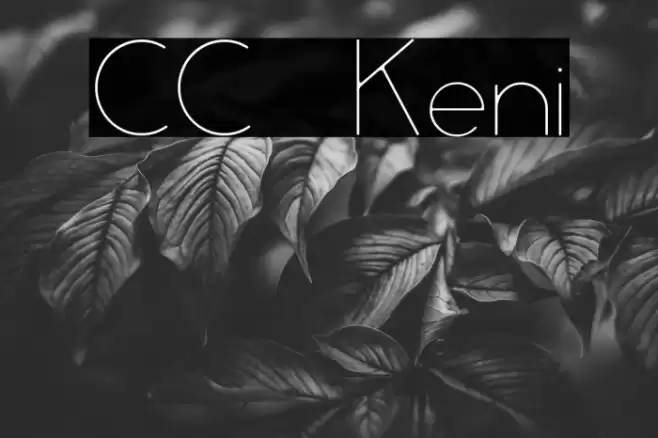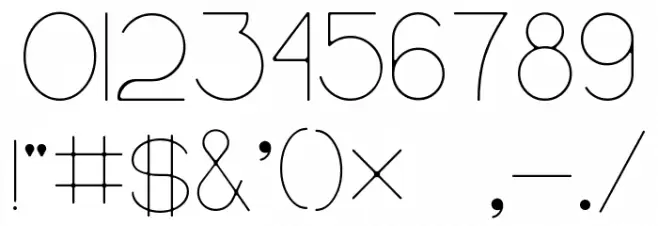
CC Keni Font
CC Keni Description
This font features a clean, minimalist design with a geometric structure. The characters are composed of thin, uniform lines that give it a modern and elegant appearance. The uppercase and lowercase letters maintain a consistent height, contributing to a harmonious look. The numerals and special characters follow the same design principles, ensuring a cohesive style throughout. The simplicity and clarity of the font make it versatile for various design applications.
A modern, geometric font with thin, uniform lines and a minimalist design from Regular fonts.
- Proposed Projects: Ideal for modern branding, minimalist posters, sleek website headers, and contemporary product packaging.